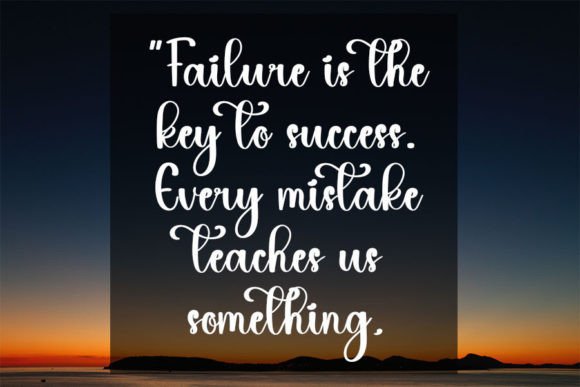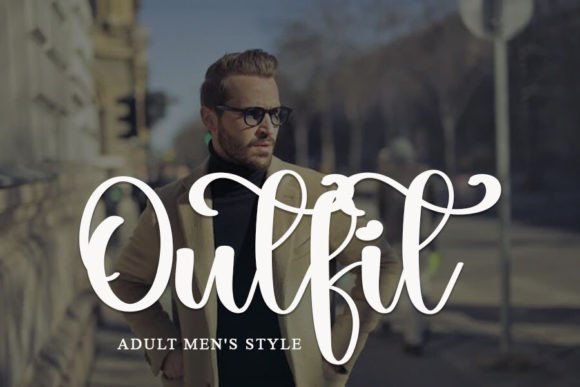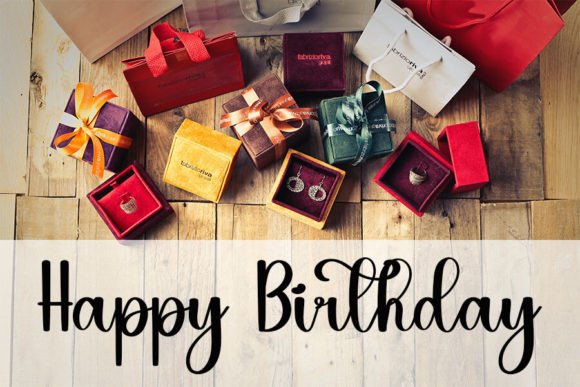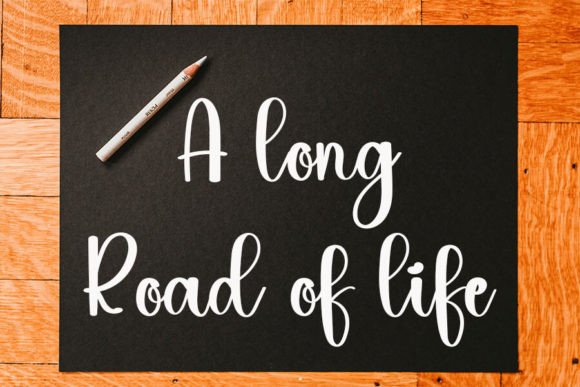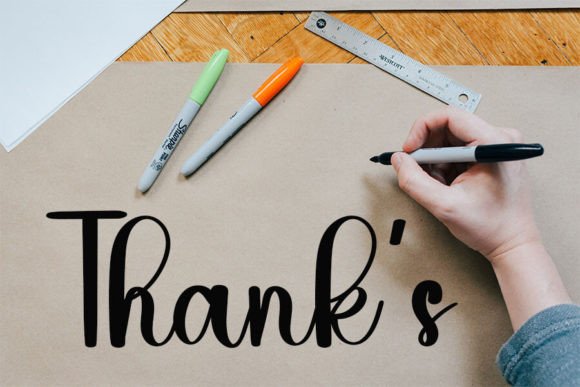
Discover the Charm of Autumn Vintage Font: Elevate Your Designs with Timeless Elegance
As the seasons change and autumn leaves start to fall, designers and crafters are on the lookout for inspiration to infuse their projects with the warmth and coziness of the season. If you’re searching for a font that embodies the essence of autumn, look no further than the Autumn Vintage Font. This beautiful, elegant font is perfect for adding a touch of sophistication and whimsy to your favorite projects.
The Beauty of Autumn Vintage Font
Autumn Vintage Font is a neat and beautiful font that exudes an elegant touch, making it perfect for designers and crafters who want to create stunning designs. The font’s incredibly distinct and timeless style is sure to captivate your audience and leave a lasting impression. With its classic and sophisticated look, Autumn Vintage Font is ideal for a wide range of projects, from fall-themed designs to wedding invitations, and from branding to packaging.
What Makes Autumn Vintage Font Special?
So, what sets Autumn Vintage Font apart from other fonts? Here are a few features that make it a standout:
- Elegant and Refined: Autumn Vintage Font boasts an elegant and refined design that adds a touch of sophistication to any project.
- Timeless Style: The font’s classic style ensures that it will remain relevant for years to come, making it a great investment for designers and crafters.
- Distinctive: The font’s unique and distinctive design makes it perfect for creating memorable and eye-catching designs.
- Versatile: Autumn Vintage Font is versatile and can be used for a wide range of projects, from digital designs to print materials.
How to Use Autumn Vintage Font in Your Designs
Autumn Vintage Font is easy to use and can be incorporated into your designs in a variety of ways. Here are a few ideas to get you started:
- Fall-themed Designs: Use Autumn Vintage Font to create stunning fall-themed designs, such as leaf-inspired graphics, pumpkin patches, and cozy sweaters.
- Wedding Invitations: Add a touch of elegance to your wedding invitations and stationery with Autumn Vintage Font.
- Branding and Packaging: Use the font to create beautiful branding and packaging designs that reflect the warmth and coziness of the autumn season.
- Digital Designs: Incorporate Autumn Vintage Font into your digital designs, such as social media graphics, blog headers, and email newsletters.
Tips and Tricks for Working with Autumn Vintage Font
Here are a few tips and tricks to help you get the most out of Autumn Vintage Font:
- Experiment with Colors: Autumn Vintage Font looks stunning with warm, rich colors, such as oranges, yellows, and reds.
- Play with Pairings: Try pairing Autumn Vintage Font with other fonts to create unique and interesting combinations.
- Use it Sparingly: Use Autumn Vintage Font sparingly to create emphasis and add visual interest to your designs.
Autumn Vintage Font is a beautiful and elegant font that is perfect for designers and crafters who want to add a touch of sophistication and whimsy to their projects. With its timeless style, distinctive design, and versatility, this font is sure to become a favorite in your design arsenal. So why wait? Fall in love with Autumn Vintage Font and start creating spectacular designs today!
Whether you’re a seasoned designer or a crafty DIY enthusiast, Autumn Vintage Font is sure to inspire you to create something truly special. So go ahead, get creative, and let the charm of Autumn Vintage Font elevate your designs to new heights!